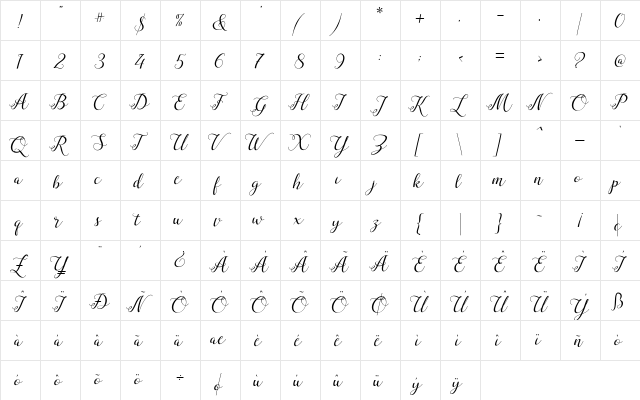
Milagros Script Regular
| Foundry | Bonjour Type |
| Designer | Rachma |
Design Context for Milagros Script Typeface
Milagros Script flows with the natural rhythm of handwritten lettering, making it ideal for designs that call for warmth and personal expression.
Font Pairing: Combine Milagros Script with a simple geometric sans for maximum contrast — the tension between flowing curves and clean structure is a classic typographic pairing.
Pro Tip: Use Milagros Script for short runs of text — names, titles, or taglines. Extended body copy in script faces tires the eye quickly.